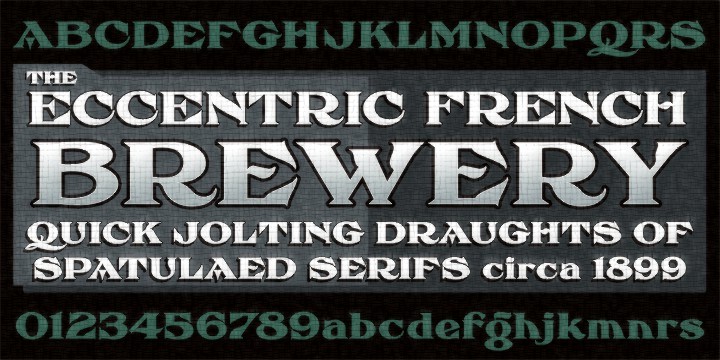
FHA Eccentric French Font is perfect for luxury fashion branding, haute couture labels, elegant wedding invitations, fine dining restaurant menus, boutique hotel signage, perfume packaging, art gallery exhibitions, sophisticated editorial layouts, premium wine labels, and upscale retail displays. This refined typeface adds French sophistication to any high-end design project.
What makes FHA Eccentric French Font exciting is its unique blend of Parisian elegance with contemporary eccentricity that creates an unforgettable visual impact. The font captures the essence of French typography traditions while incorporating modern quirks and stylistic flourishes that make each letterform distinctive. Its sophisticated character variations and elegant curves evoke the romantic charm of French design culture with a fresh, artistic twist.
The FHA Eccentric French Font family includes multiple stylistic variations such as Regular, Italic, Decorative, and Ornamental styles. Each weight features intricate details and flourishes that maintain the font's luxurious aesthetic while providing designers with comprehensive typographic options for complex branding projects.
Whether you're developing luxury brand identities, creating elegant marketing materials, or designing sophisticated publications, FHA Eccentric French Font Free Download provides the refined typography needed for premium visual communication. This font seamlessly combines classical French elegance with modern design sensibilities, making it an exceptional choice for projects requiring sophistication and artistic flair. Its meticulously crafted letterforms ensure stunning results in both large display applications and refined text settings.